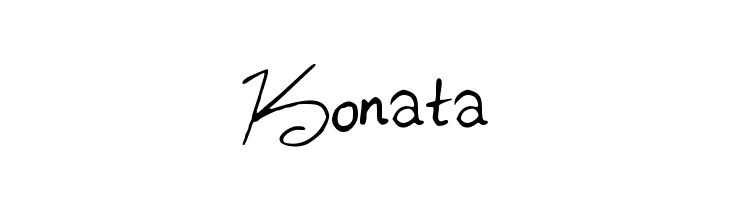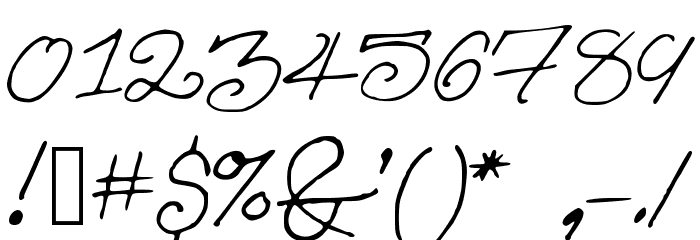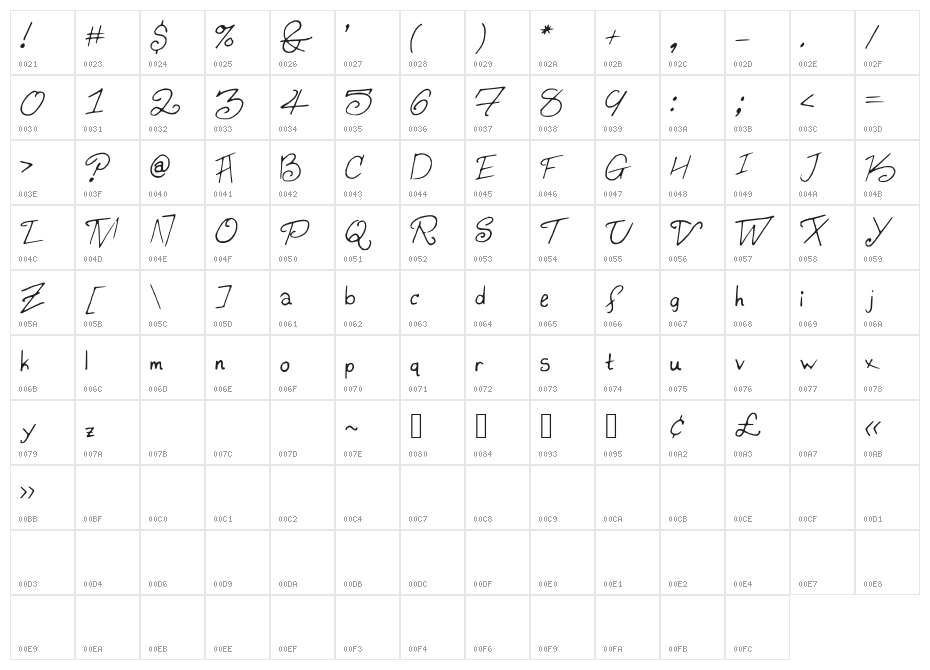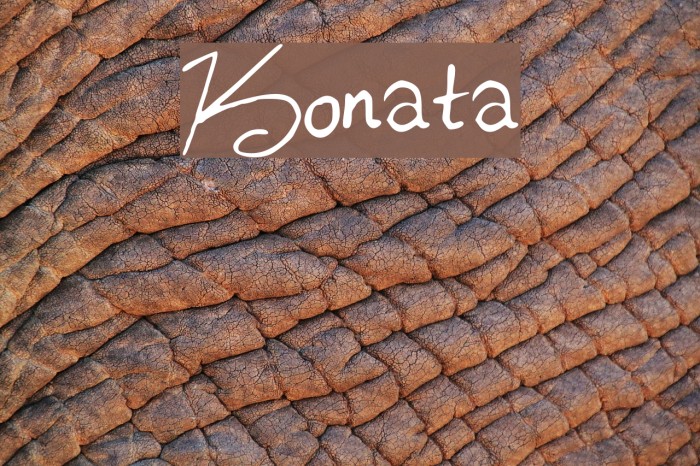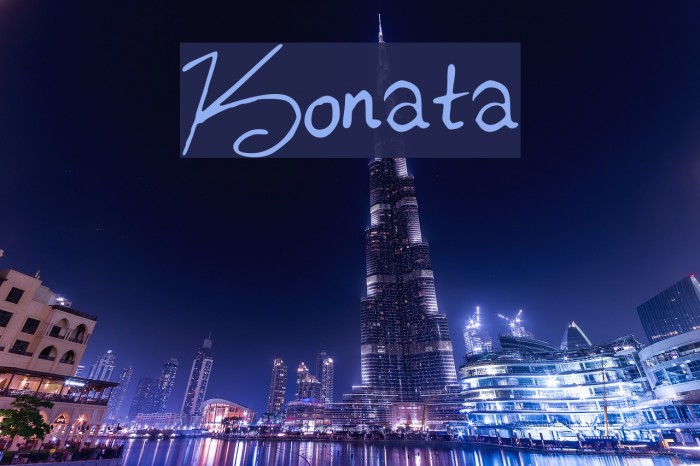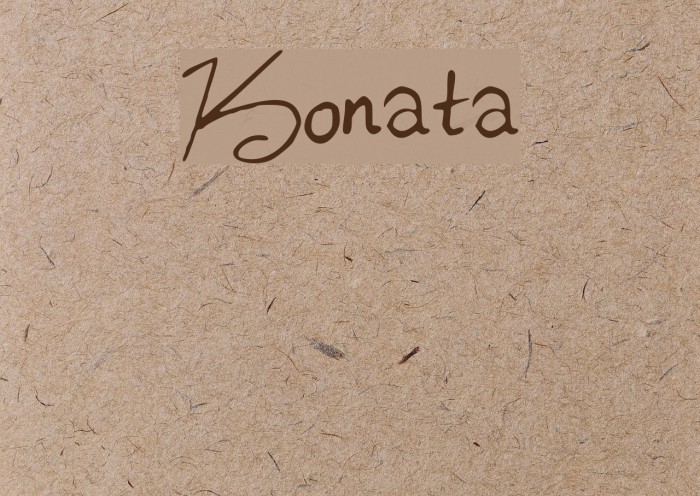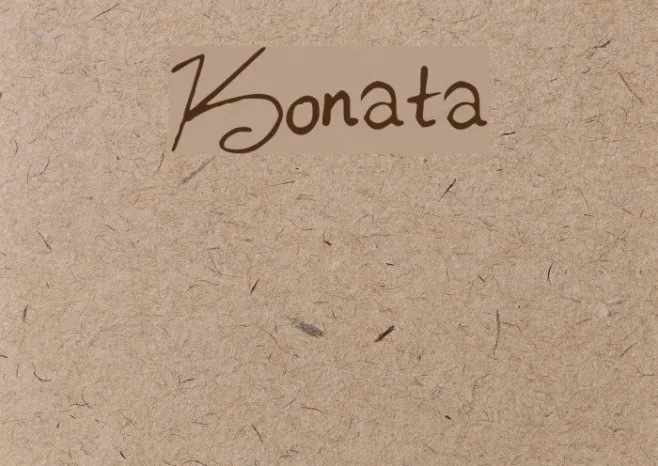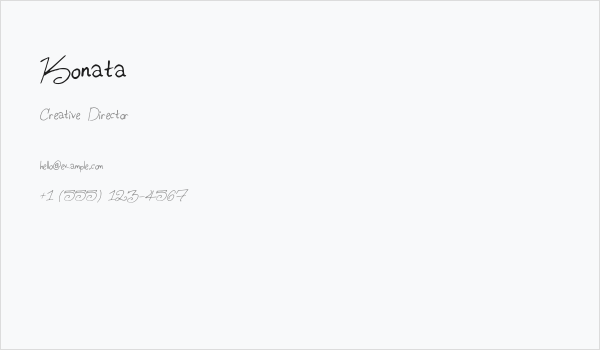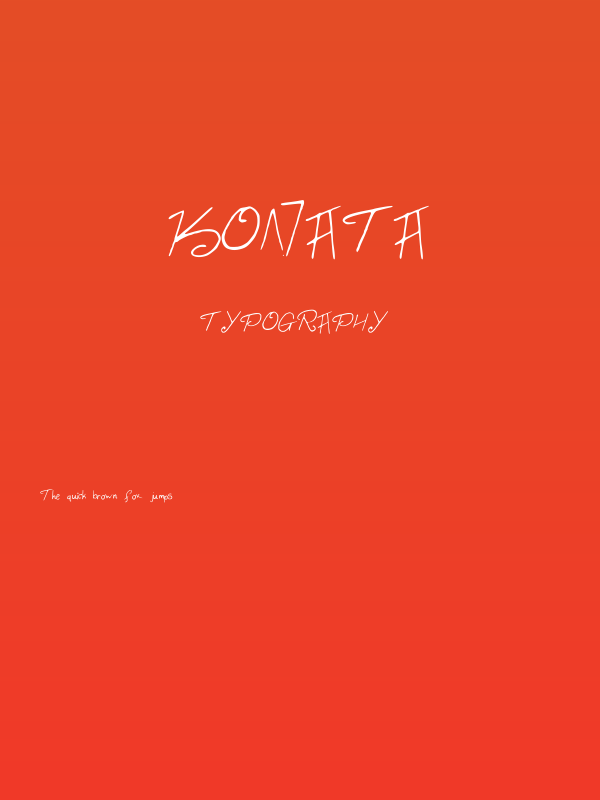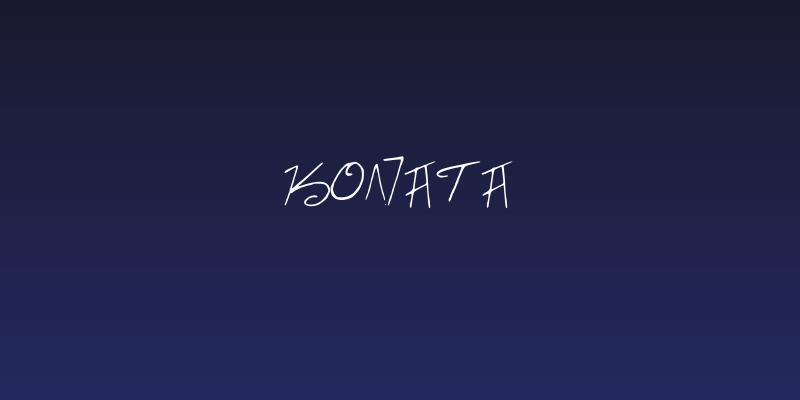
Konata Font
Konata Description
This font features a playful and dynamic script style, characterized by its fluid and slightly slanted letterforms. The uppercase letters exhibit a sense of movement with their sweeping curves and varying stroke widths, while the lowercase letters maintain a cohesive flow that enhances readability. The numerals are distinct and maintain the same lively aesthetic, making them suitable for various design contexts. Special characters are thoughtfully integrated, ensuring consistency across all glyphs. The overall appearance is both whimsical and elegant, making it ideal for creative projects.
| Proposed Projects | Ideal for invitations, greeting cards, branding, and creative design projects. |